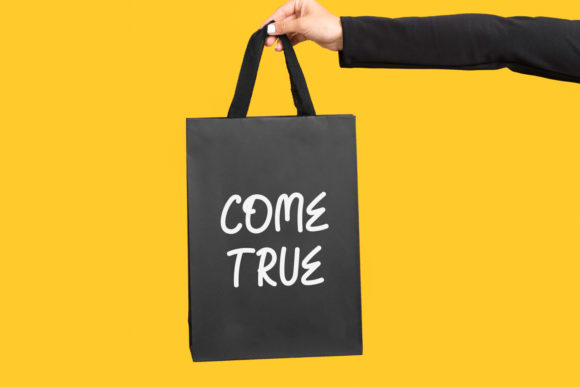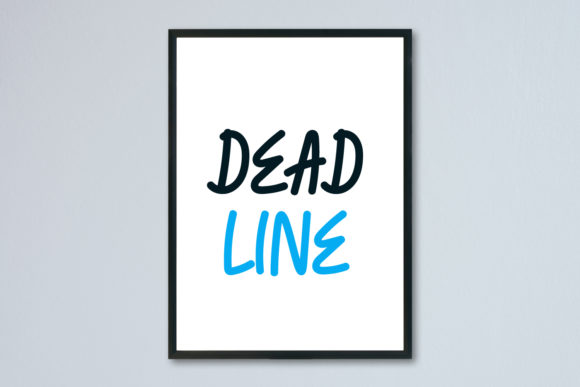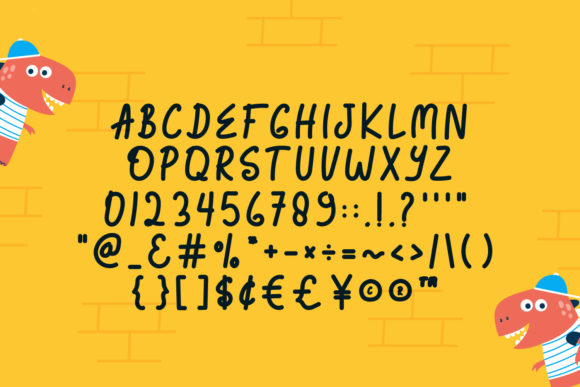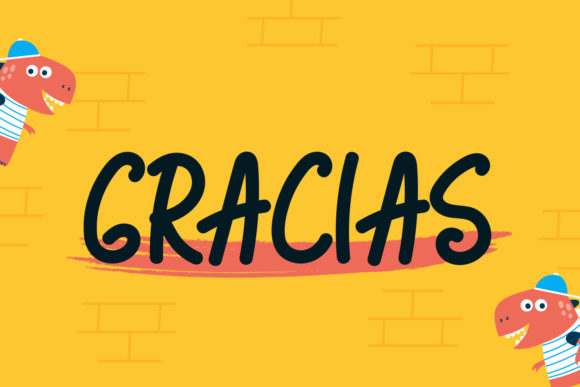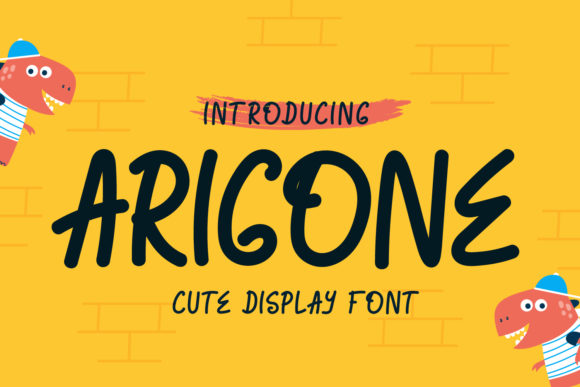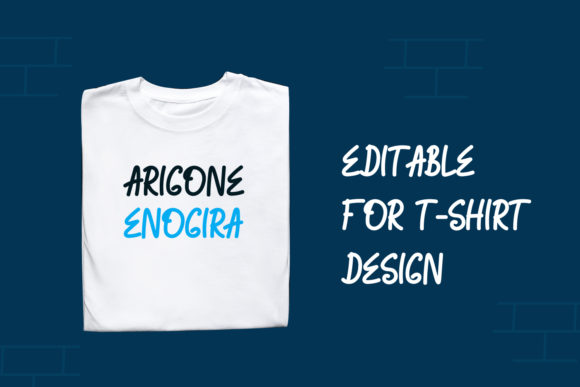
Introducing Arigone Font: The Fun and Trendy Display Font for Crafty Ideas
Are you a designer or crafter looking for a unique and eye-catching font to elevate your creative projects? Look no further than Arigone Font, a fun and trendy display font that’s perfect for making a statement. With its original look and versatility, Arigone is ideal for a wide range of crafty ideas, from letterheads and titles to stationery and more.
The Characteristics of Arigone Font
Arigone Font boasts a distinctive and stylish design that’s sure to capture attention. Its fun and trendy aesthetic makes it perfect for projects that require a playful touch. The font’s display style ensures that it stands out, whether used for headings, titles, or other prominent text elements.
One of the key benefits of Arigone Font is its versatility. Its unique look can be adapted to suit a variety of creative projects, from modern and edgy to vintage and whimsical. Whether you’re designing a logo, creating a brand identity, or crafting a one-of-a-kind stationery set, Arigone Font is the perfect choice.
What Makes Arigone Font So Special?
So, what sets Arigone Font apart from other display fonts on the market? Here are just a few reasons why designers and crafters love this font:
- Unique and Original Design: Arigone Font features a one-of-a-kind design that’s sure to make your projects stand out.
- Fun and Trendy Aesthetic: The font’s playful style is perfect for projects that require a youthful and modern touch.
- Versatility: Arigone Font can be used for a wide range of creative projects, from letterheads and titles to stationery and more.
- Ease of Use: The font is easy to read and works well in both digital and print formats.
How to Use Arigone Font in Your Projects
Arigone Font is incredibly versatile, making it perfect for a variety of creative projects. Here are just a few ideas to get you started:
- Letterheads and Titles: Use Arigone Font to create eye-catching letterheads and titles that make a lasting impression.
- Stationery and Invitations: Add a touch of whimsy to your stationery and invitations with Arigone Font.
- Logos and Branding: Use Arigone Font to create a unique and memorable logo for your brand.
- Social Media Graphics: Add a pop of personality to your social media graphics with Arigone Font.
Tips for Getting the Most Out of Arigone Font
To get the most out of Arigone Font, here are a few tips to keep in mind:
- Experiment with Different Sizes: Arigone Font looks great in a variety of sizes, so don’t be afraid to experiment to find the perfect fit for your project.
- Pair with Other Fonts: Try pairing Arigone Font with other fonts to create a unique and eye-catching combination.
- Use in Combination with Images: Arigone Font works well in combination with images, so consider using it to add text to your favorite photos or illustrations.